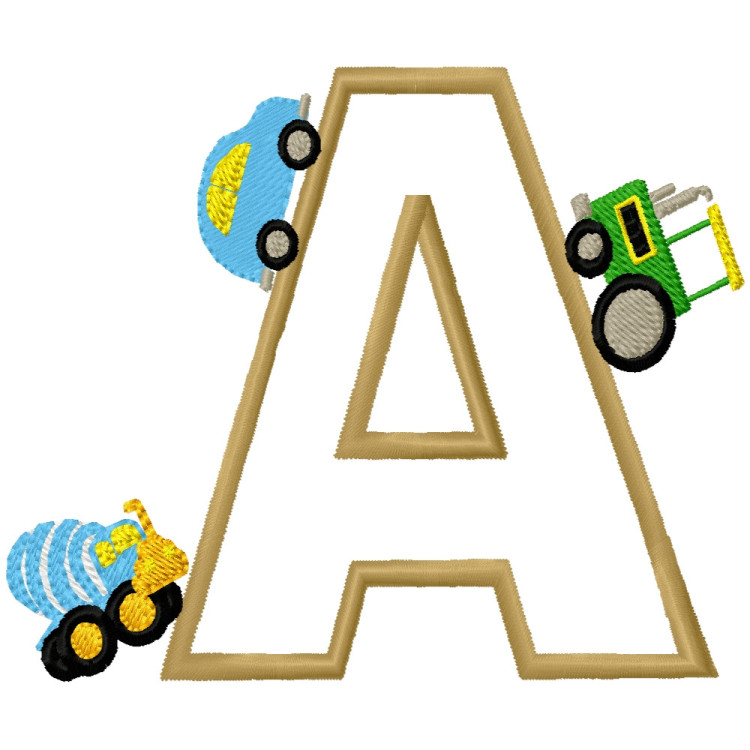
What a great applique font for boys! Each applique letter has a car, tractor, and cement truck driving around the letter!
Upper case and numbers are applique.
The lower case are satin stitch approx. size
Use many color combinations with this font to create awesome projects!